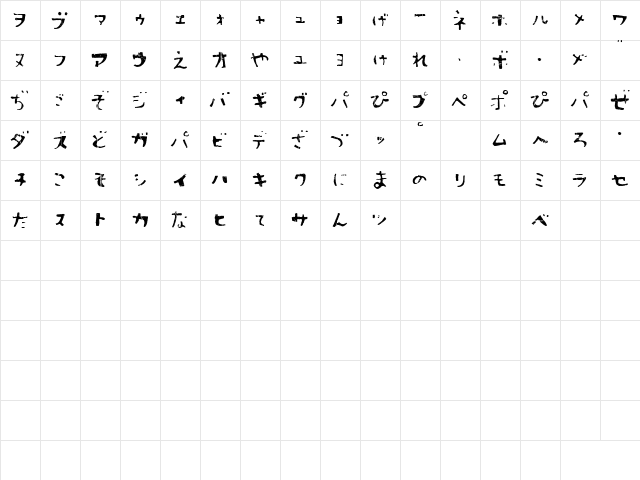
Sushitaro Regular
Design Context for Sushitaro Typeface
Sushitaro is a composed and adaptable typeface that performs quietly and consistently across a wide range of design contexts.